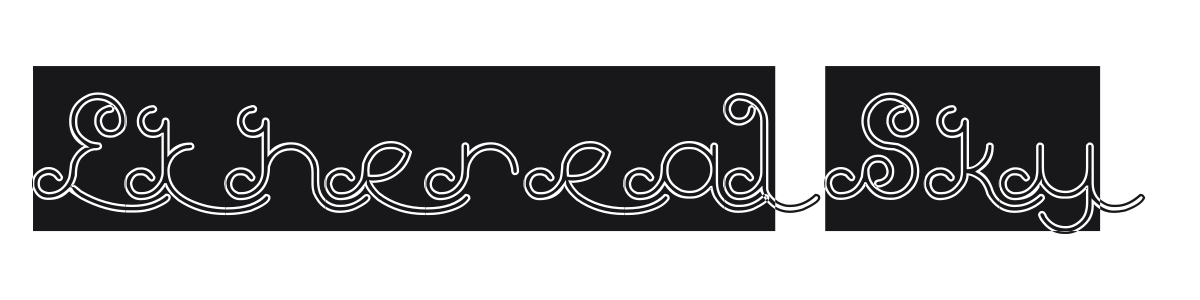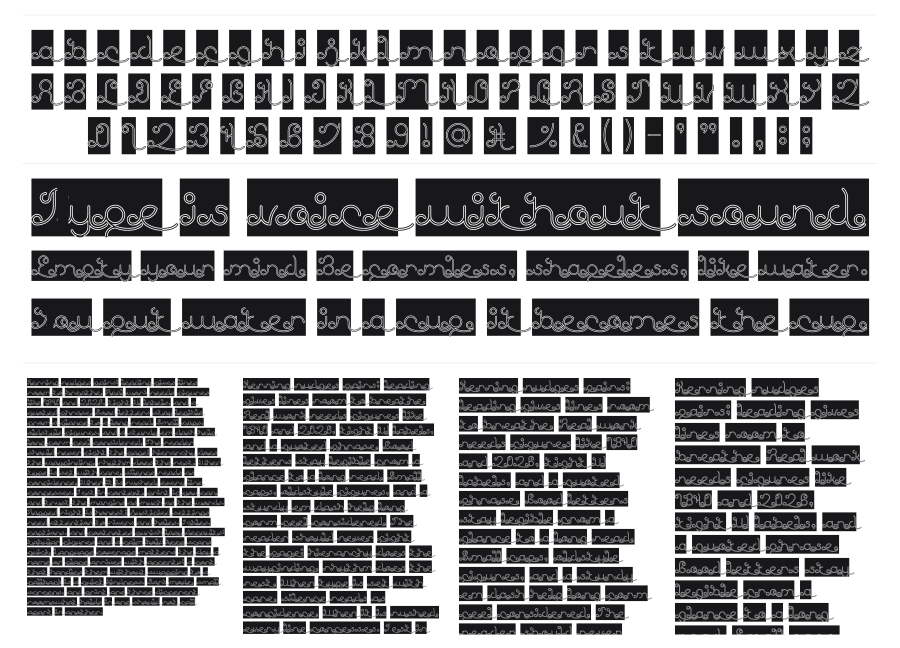
Ethereal Sky
Ethereal Sky is a looping outline display font built entirely from doubled strokes that trace elaborate spiraling curves through every character. The result is a tubular, ribbon-like script that feels simultaneously handcrafted and fantastical. It commands attention at large sizes and suits projects that want a dreamy, free-spirited mood.